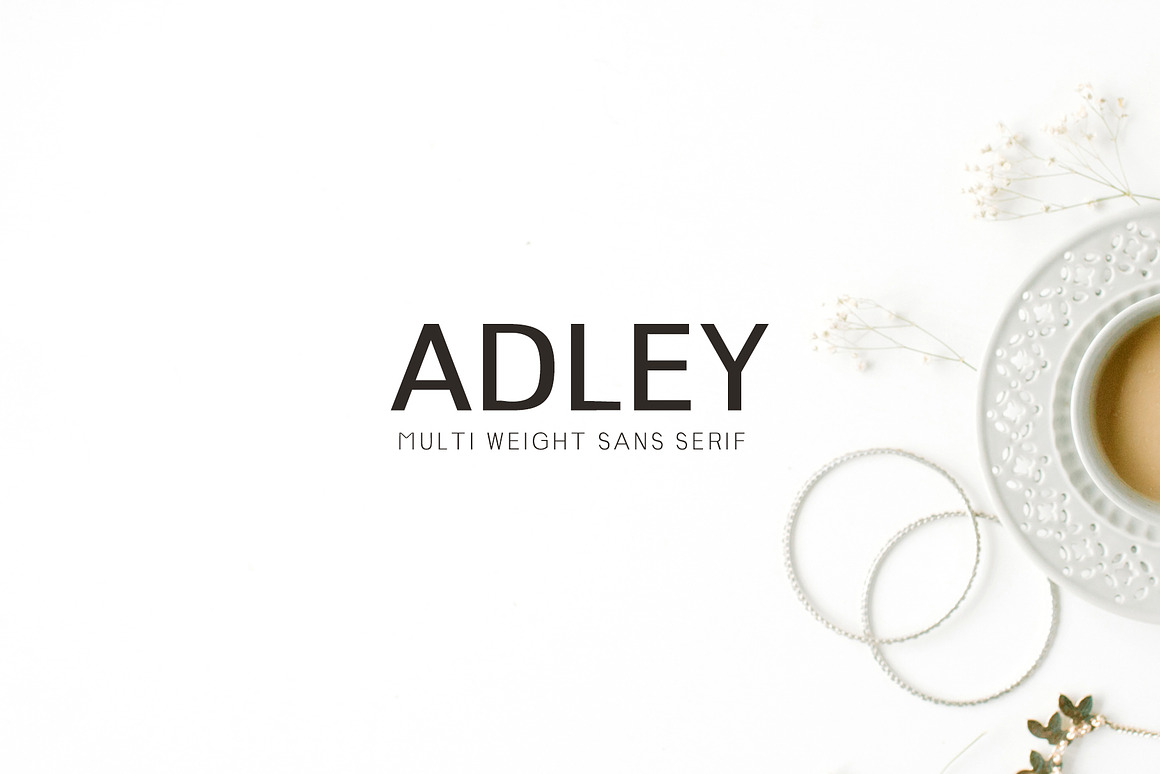
Adley Sans Serif 3 Font Family Pack
Adley Sans Serif 3 Font Family Pack is perfect for modern websites, mobile applications, corporate presentations, minimalist branding, tech startup logos, user interface design, digital magazines, and contemporary advertising campaigns.
Adley Sans Serif 3 Font Family Pack is exciting because it delivers cutting-edge typography with perfectly balanced proportions and exceptional clarity across all digital platforms. Its sleek, geometric foundation combined with subtle humanist touches creates professional sophistication that resonates with modern audiences.
Adley Sans Serif 3 Font Family Pack family includes light, regular, and bold weights with corresponding italic variations, offering designers six carefully crafted font styles for comprehensive design flexibility and visual hierarchy.
Digital designers consistently select Adley Sans Serif 3 Font Family Pack for its outstanding performance in screen-based applications. The font's optimized hinting and carefully adjusted curves ensure crystal-clear rendering at all sizes, from small mobile text to large desktop displays. Its neutral yet distinctive personality provides excellent foundation for brand identity systems requiring both professionalism and approachability.
Contemporary businesses appreciate Adley Sans Serif 3 Font Family Pack's ability to communicate innovation while maintaining timeless appeal. Its versatile nature adapts effortlessly between conservative corporate communications and creative marketing materials, making it an essential typography resource for achieving polished, professional results in today's competitive digital landscape.